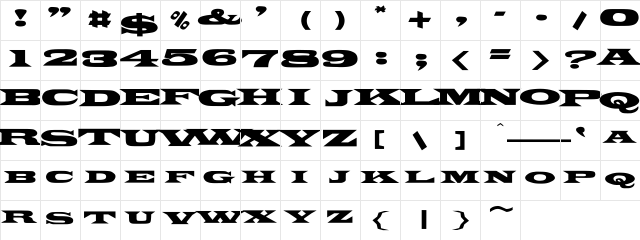
PonchoVia Wd Regular
PonchoVia Wd is a composed and adaptable typeface that performs quietly and consistently across a wide range of design contexts.